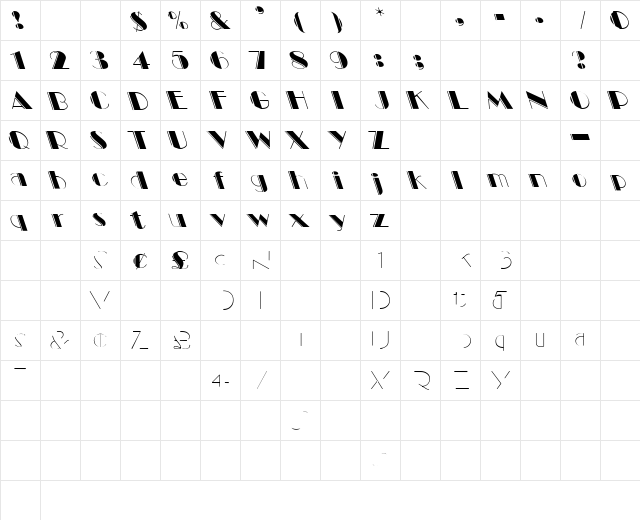
Ballet Engraved Lefty Regular
Design Context for Ballet Engraved Lefty Typeface
Ballet Engraved Lefty is built around its visual character rather than neutral utility — its distinctive forms are designed to make an impression at display sizes.
Font Pairing: Pair with a clean neutral sans-serif for body copy to let Ballet Engraved Lefty's character lead without overwhelming the composition.
Pro Tip: Use Ballet Engraved Lefty exclusively at display sizes — it was designed to be seen, not read at length. Let a neutral companion handle body copy.